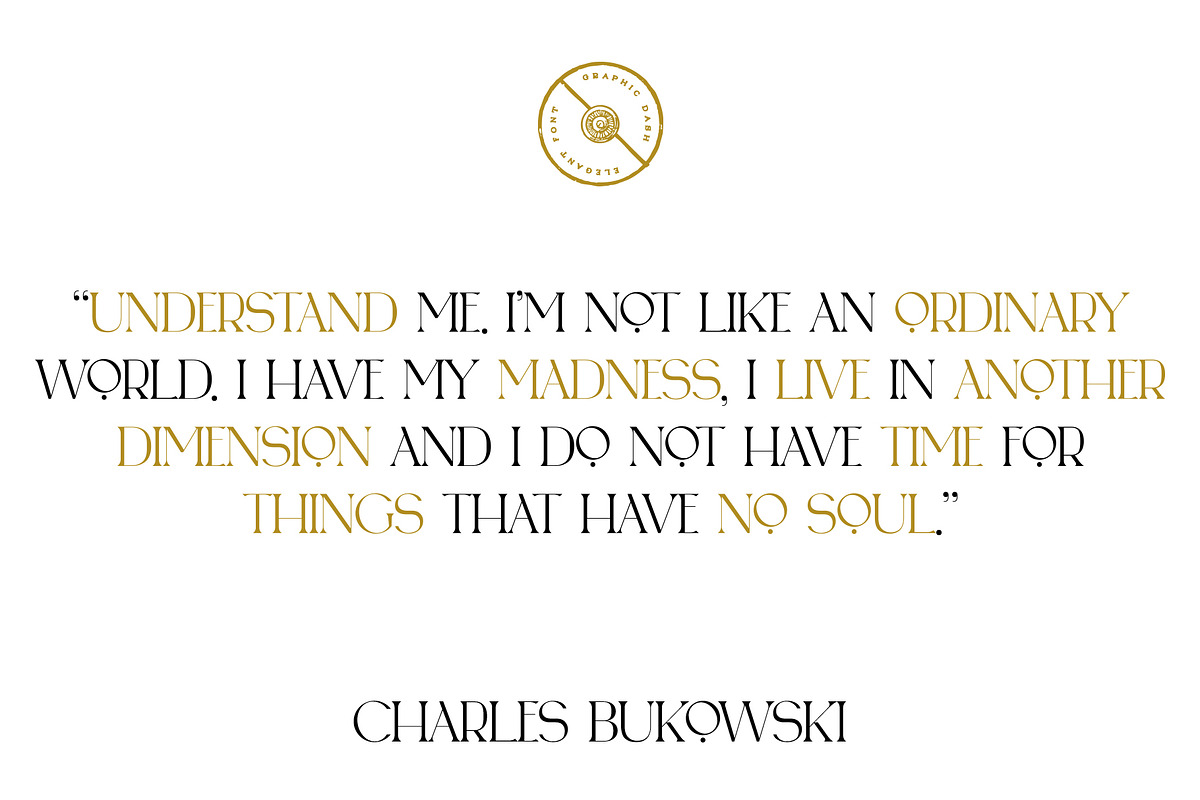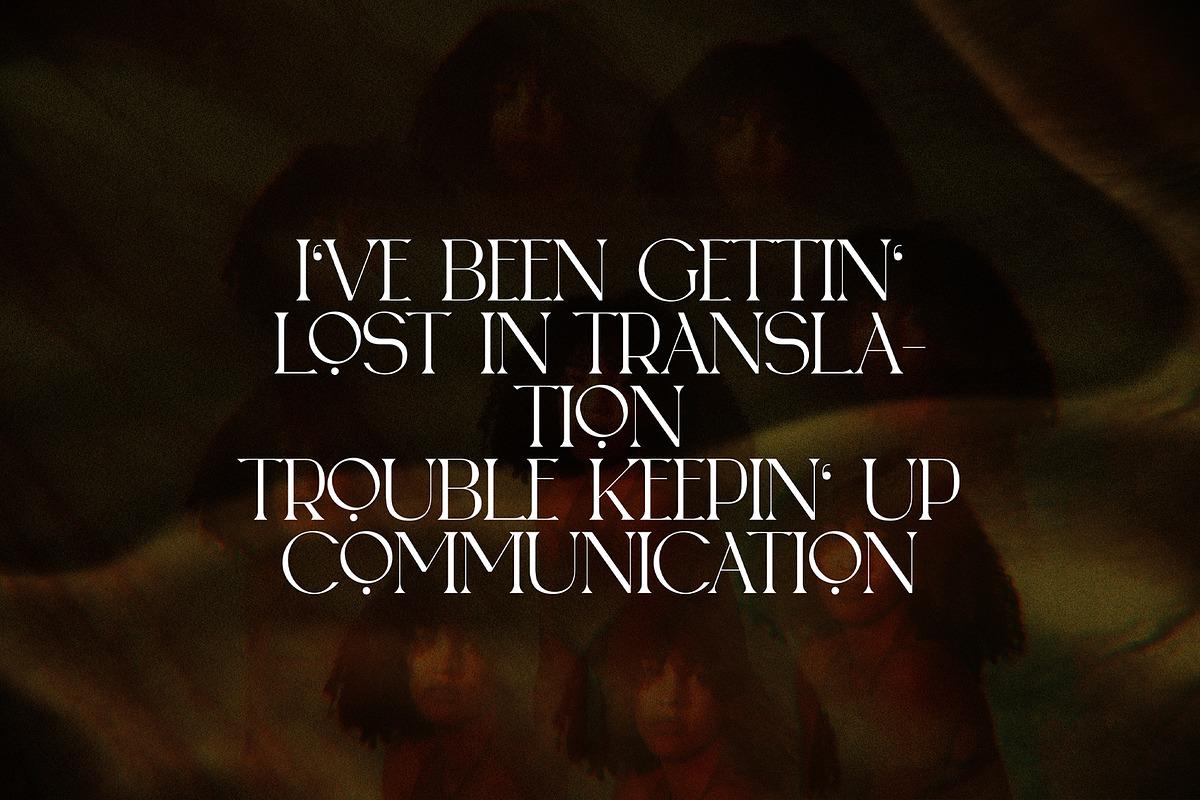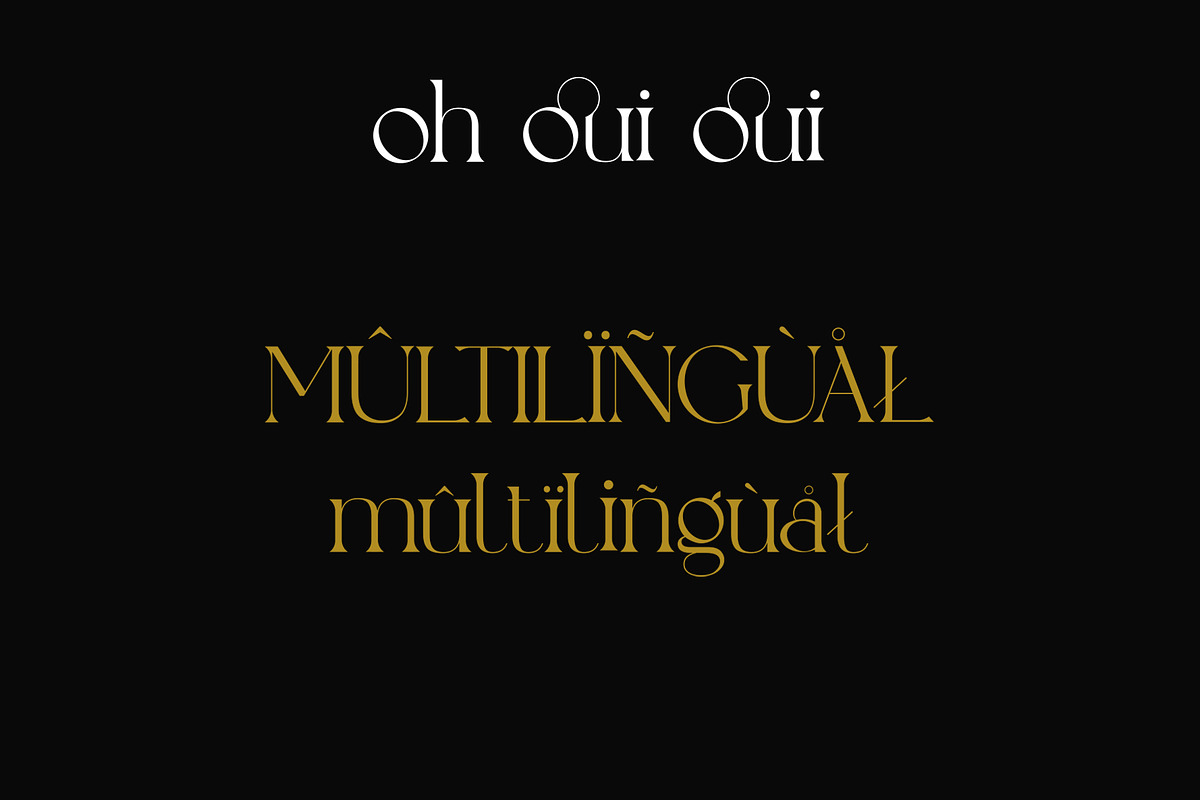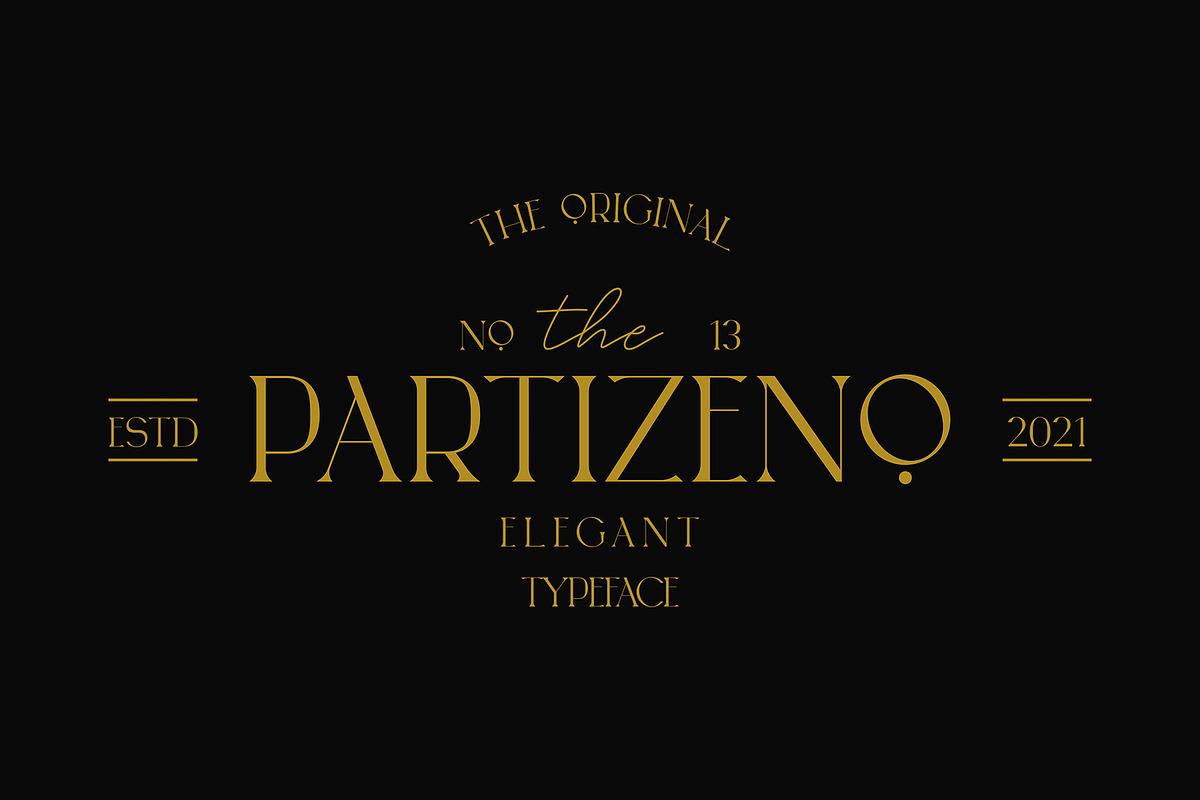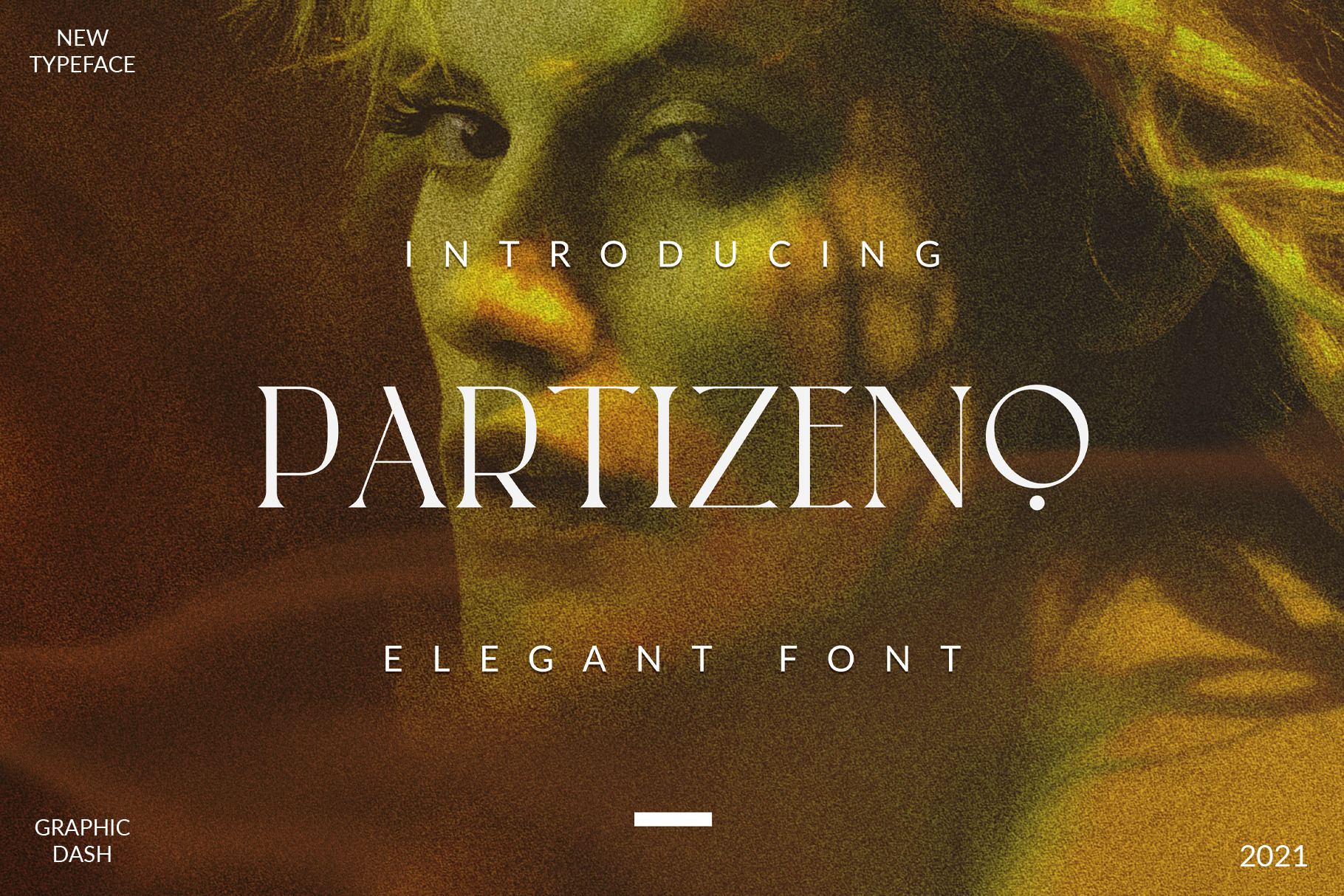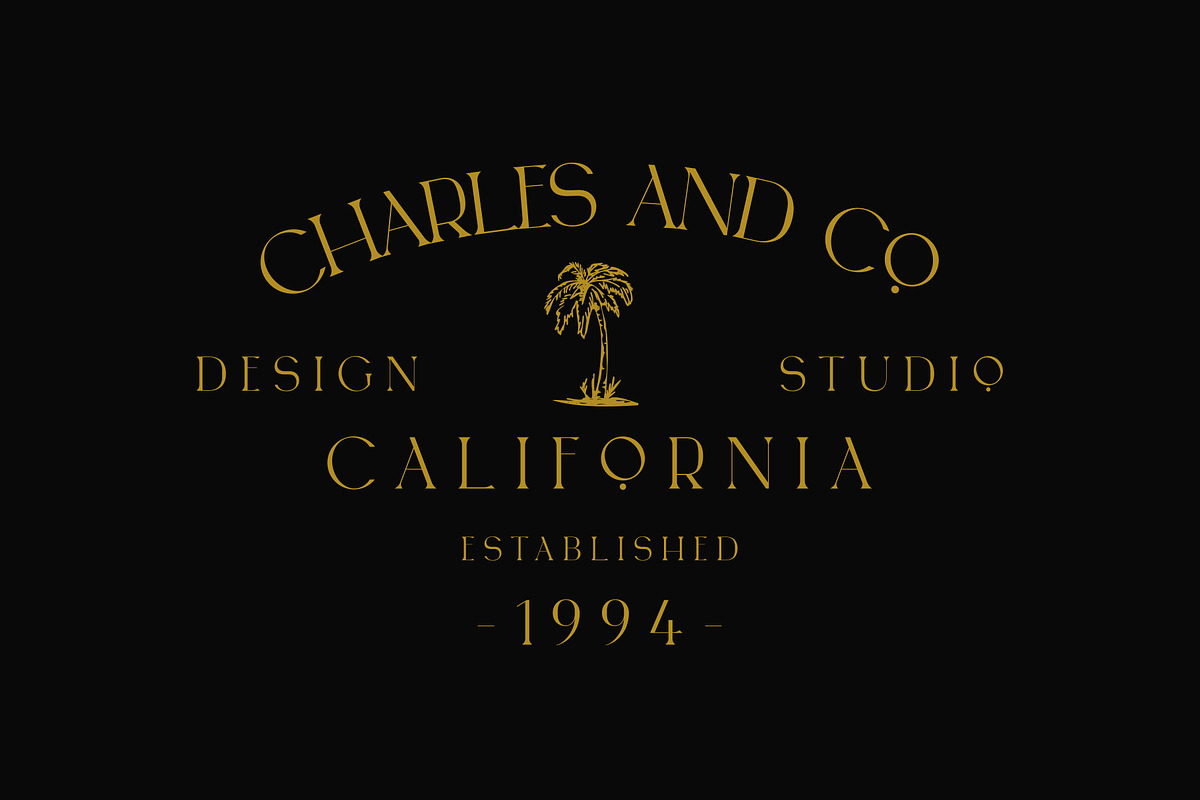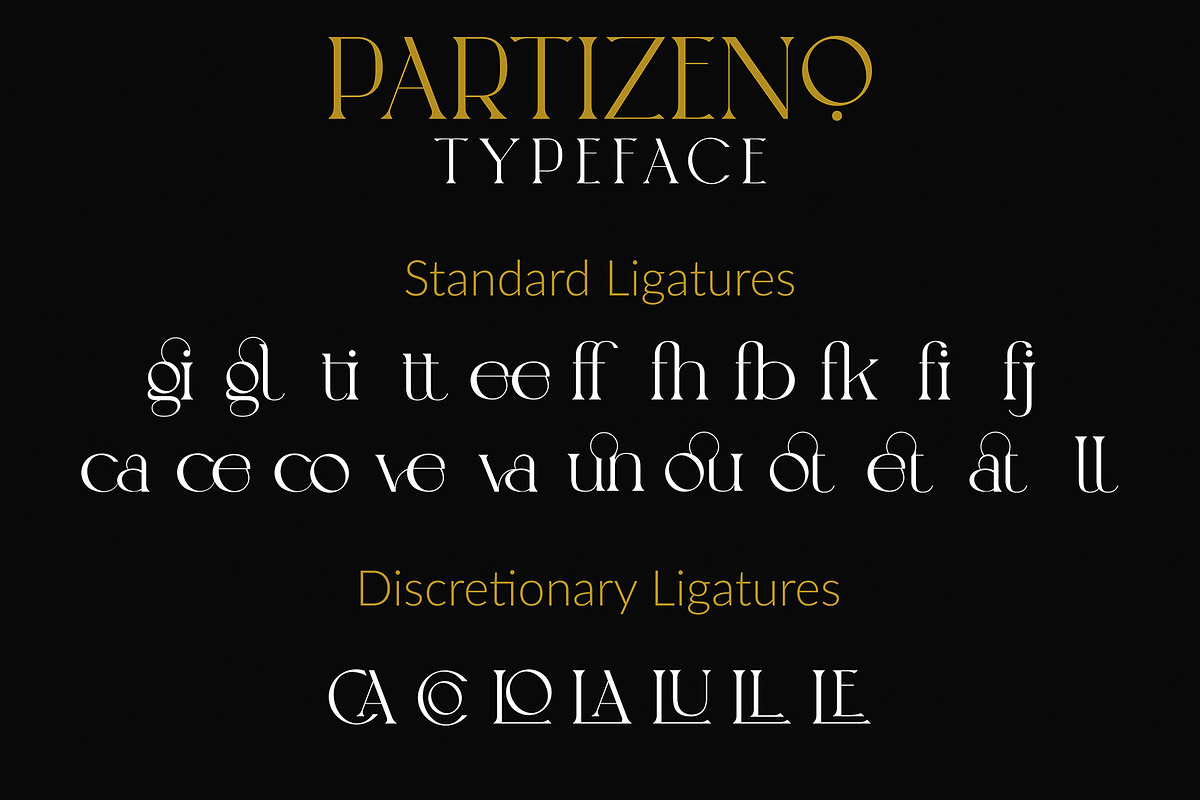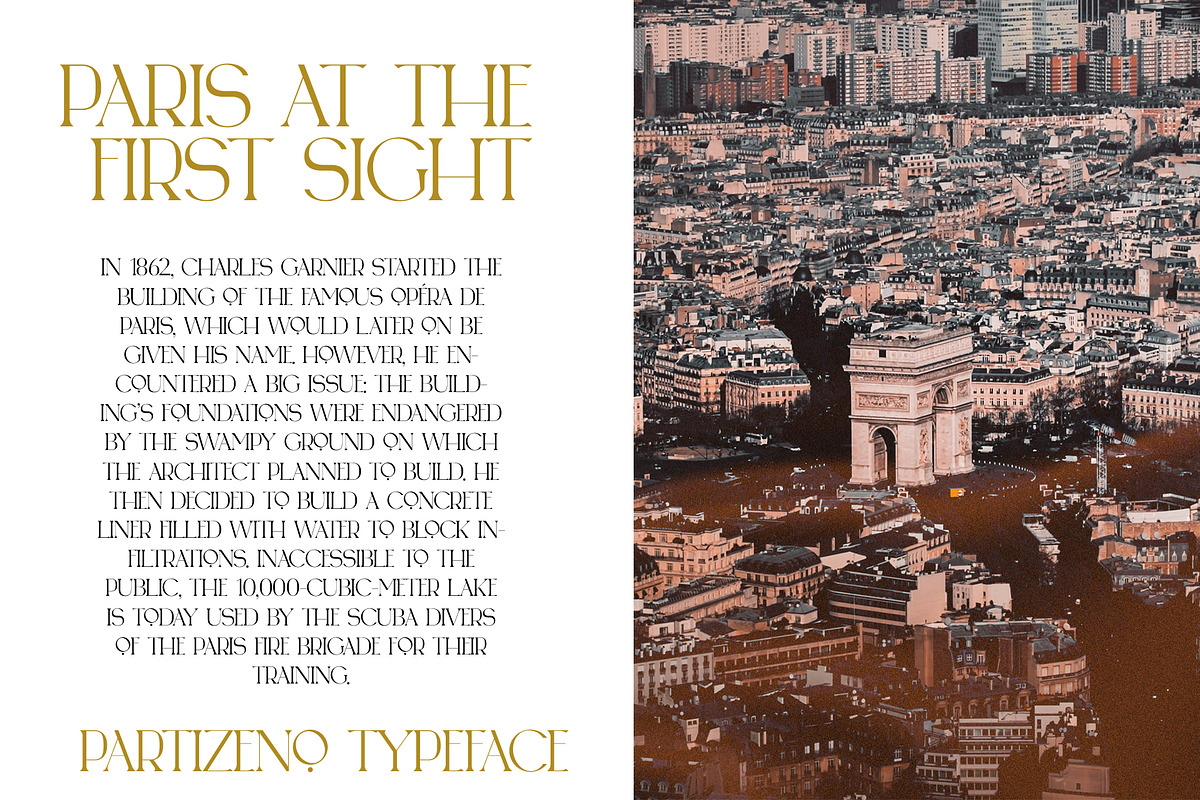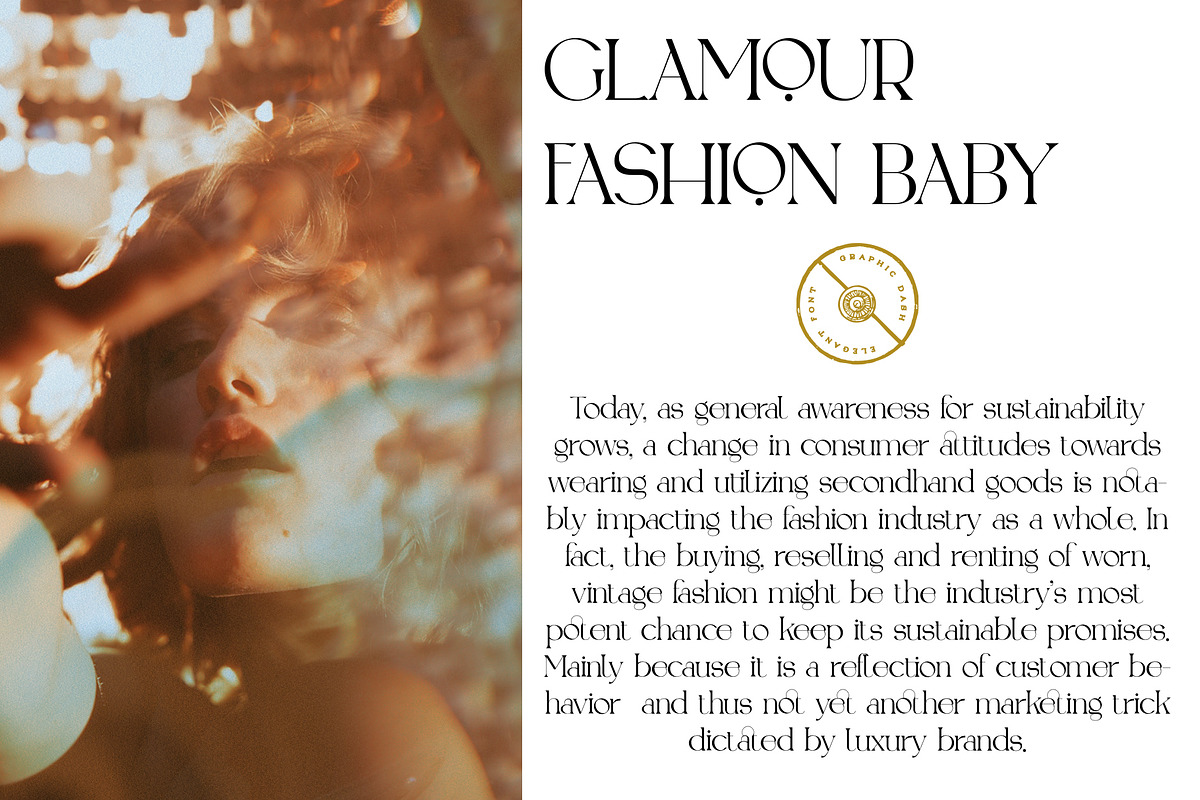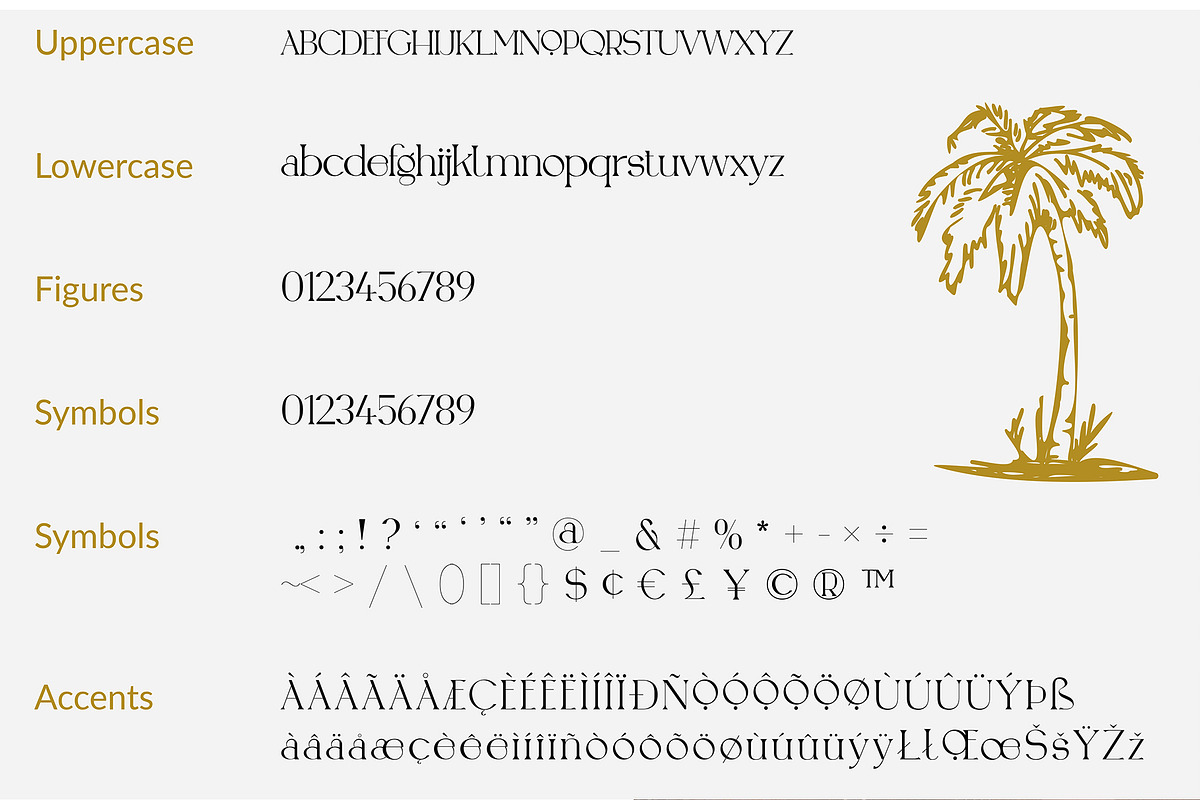
Partizeno Elegant/Branding Font
Partizeno Elegant/Logo Font
Partizeno is a versatile, modern, and elegant font. It has a unique style with standard ligatures, and supports multilingual languages.
All gorgeous standard ligatures in these versions turn on automatically and you don't need any special programs to use them.
Create unique & beautiful logotype, use it as an elegant solution for your next magazine layout, or choose Partizeno for any graphics that require a sleek look with an elegant flair.
- Uppercase/Lowecase, Ligatures, Numbers, Punctuation & Multilingual support.